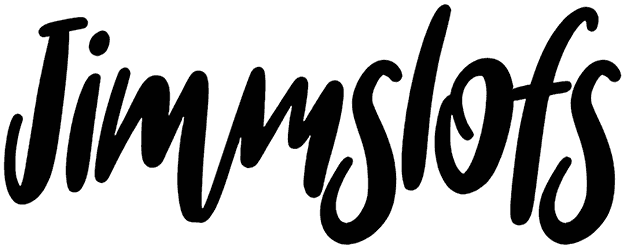
Jimmslofs Font
Jimmslofs is one of the best script fonts for obsessive artists looking to find a unique expression for their brand. This handwritten font has expressive and continuous curves that look more elegant and decorative than other fonts.
For this reason, it is very suitable for any ornamental design, such as wedding cards, personal branding menus, and tattoos. This font does not include numbers, but its smooth writing style can make many changes in any design.